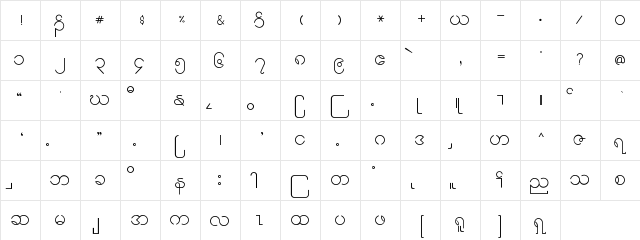
Karen3_0 Regular
Design Context for Karen3_0 Typeface
Karen3_0 offers clean, dependable letterforms without strong stylistic allegiance, making it a practical choice for designers who need flexibility.